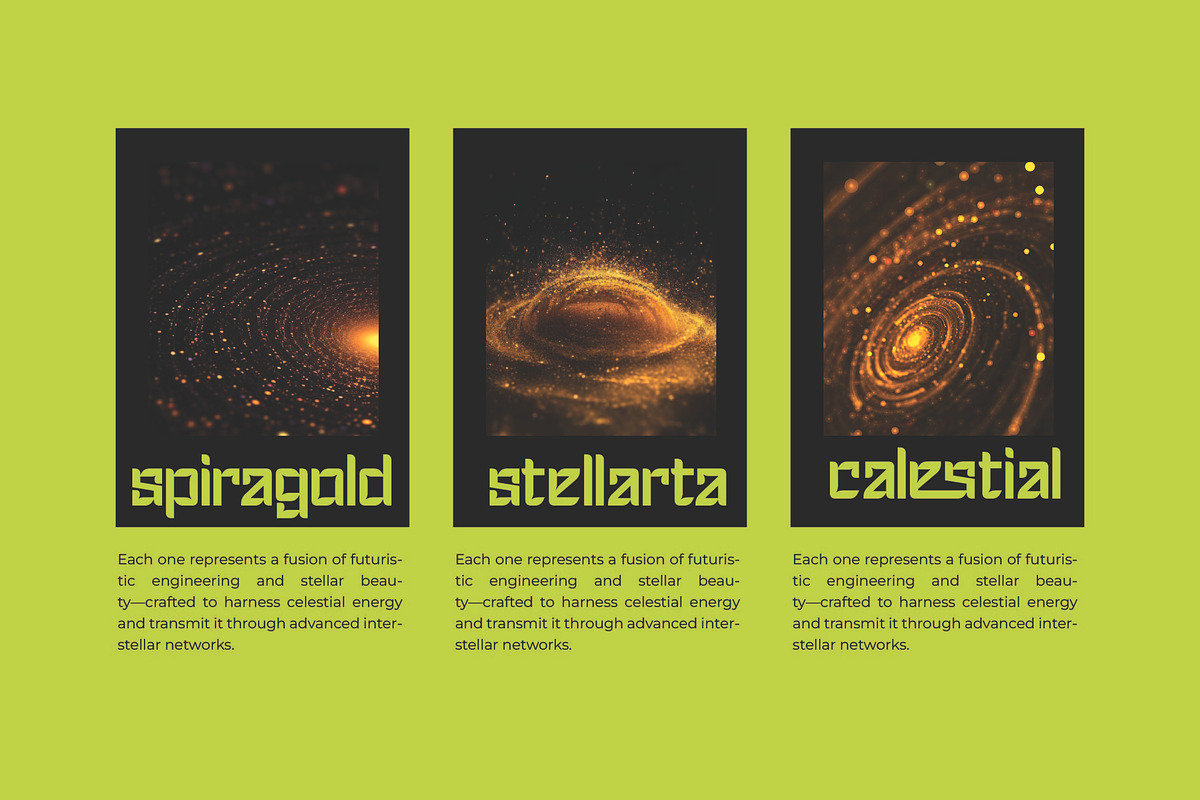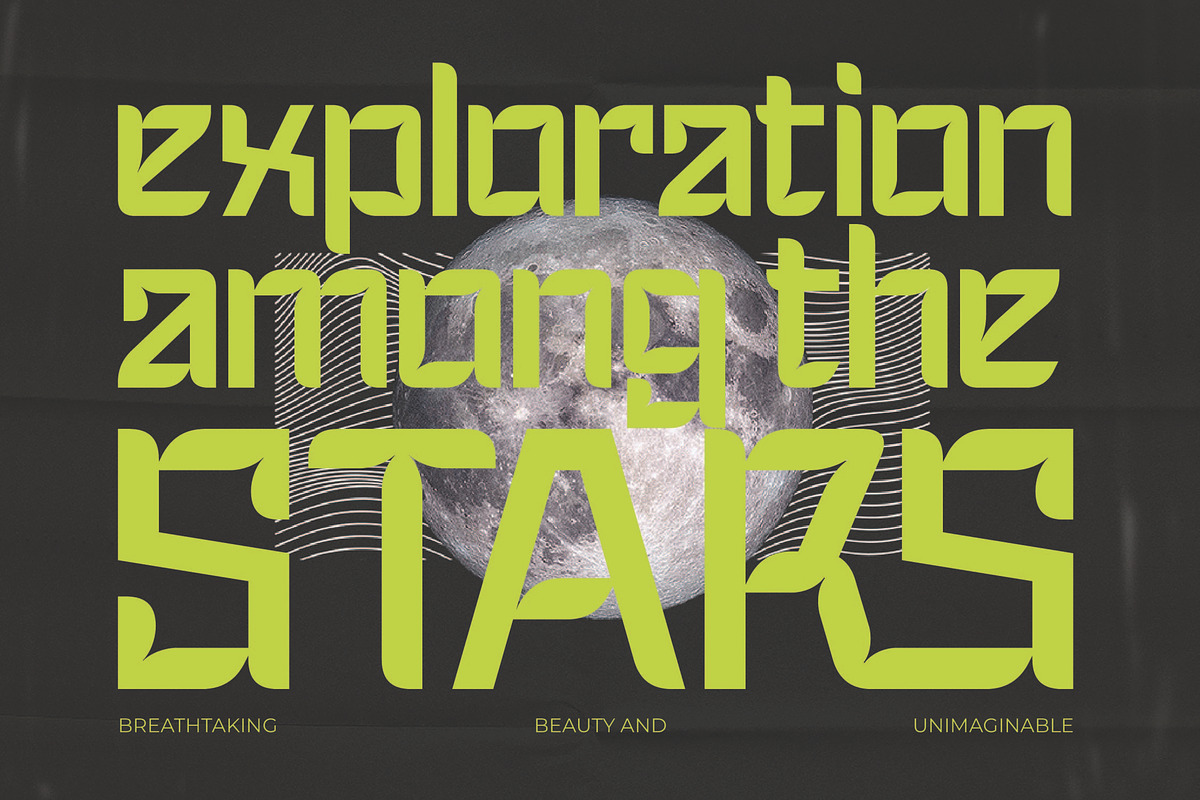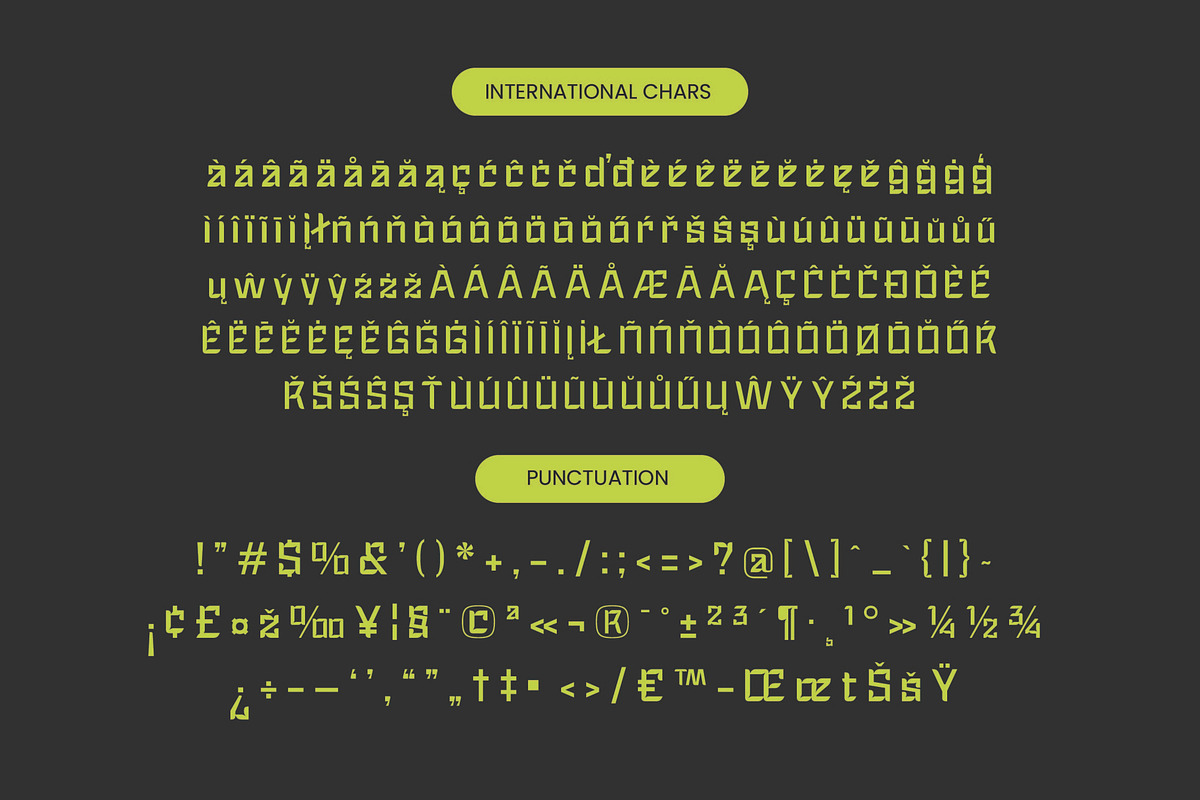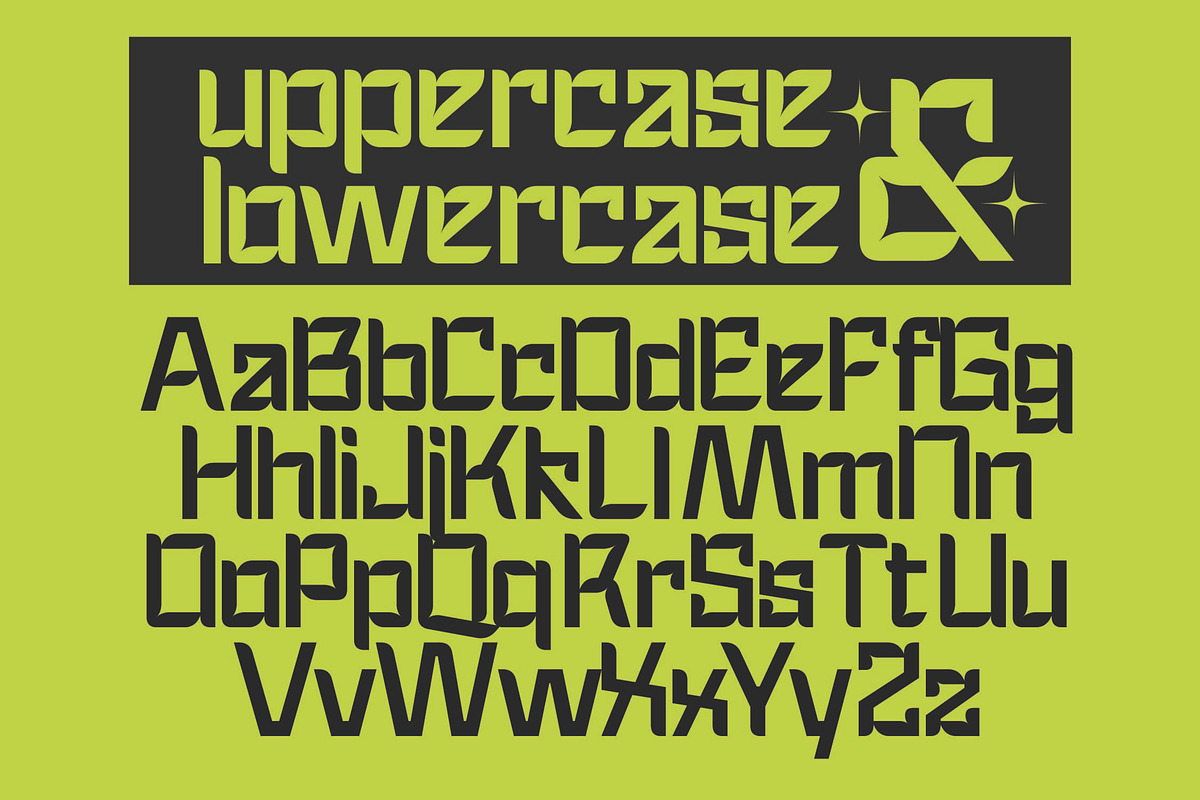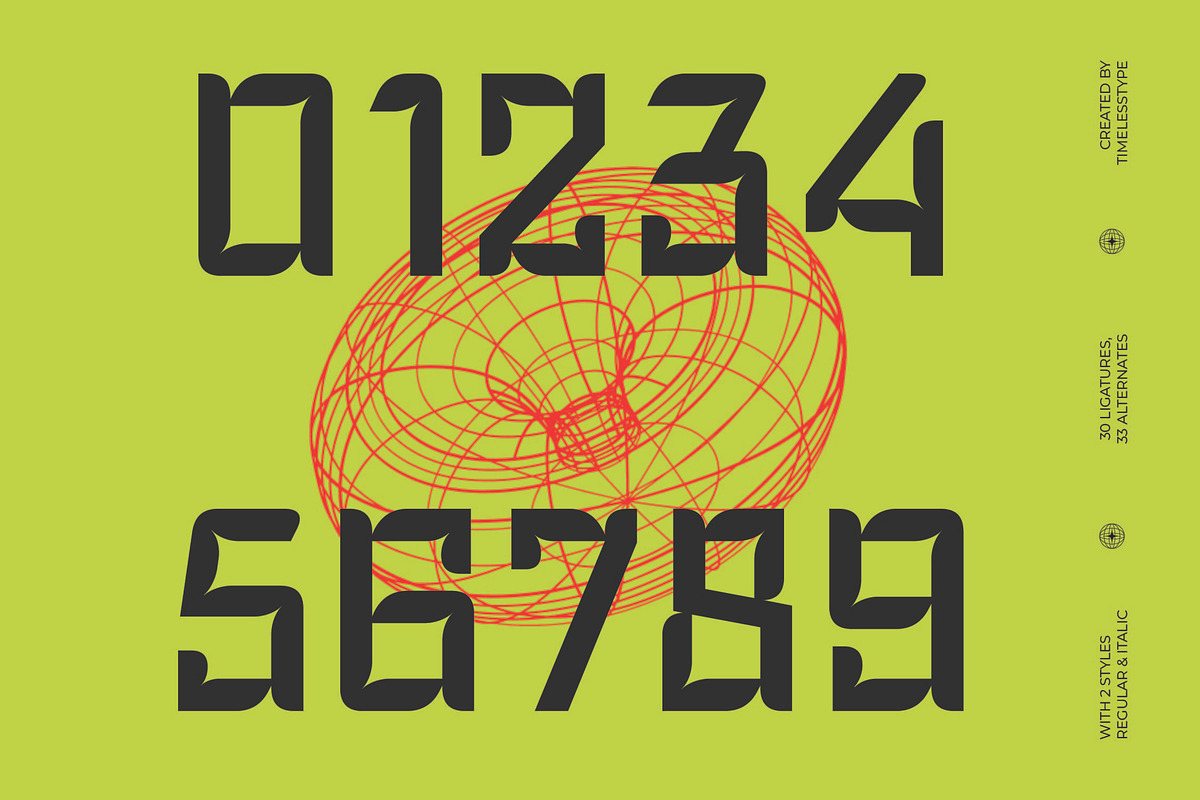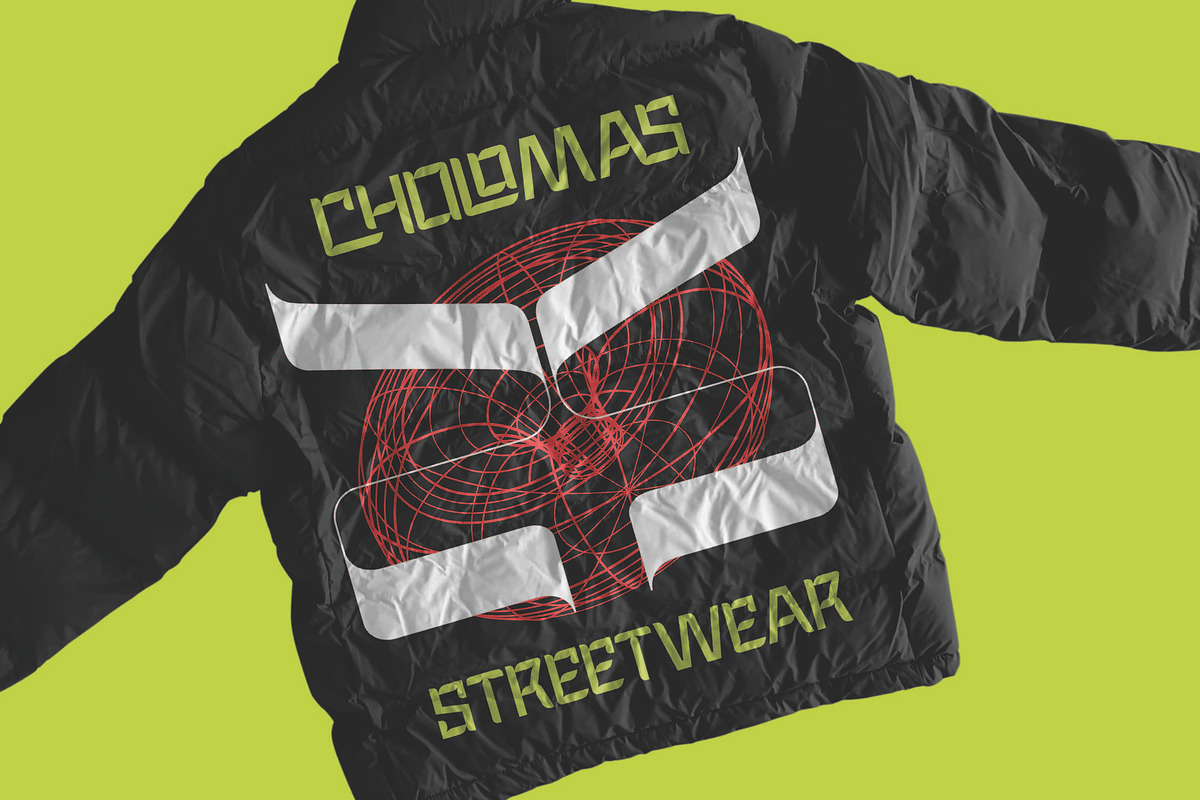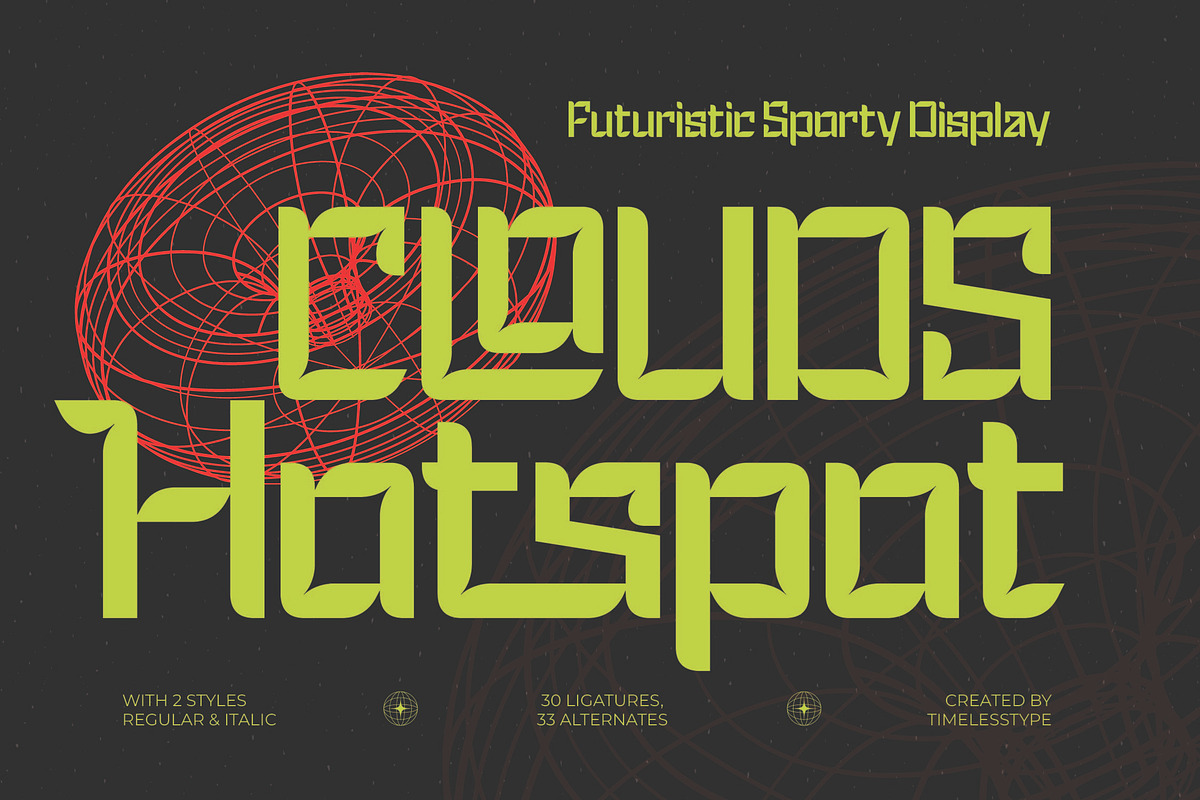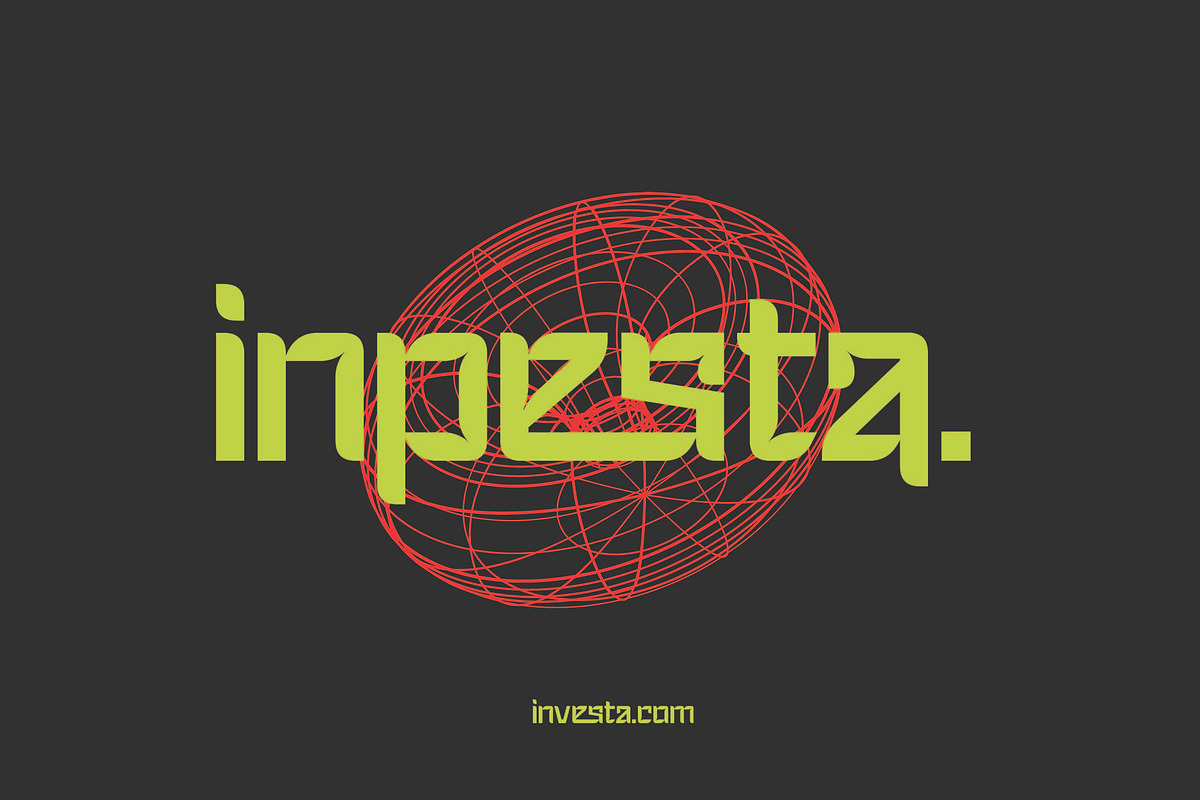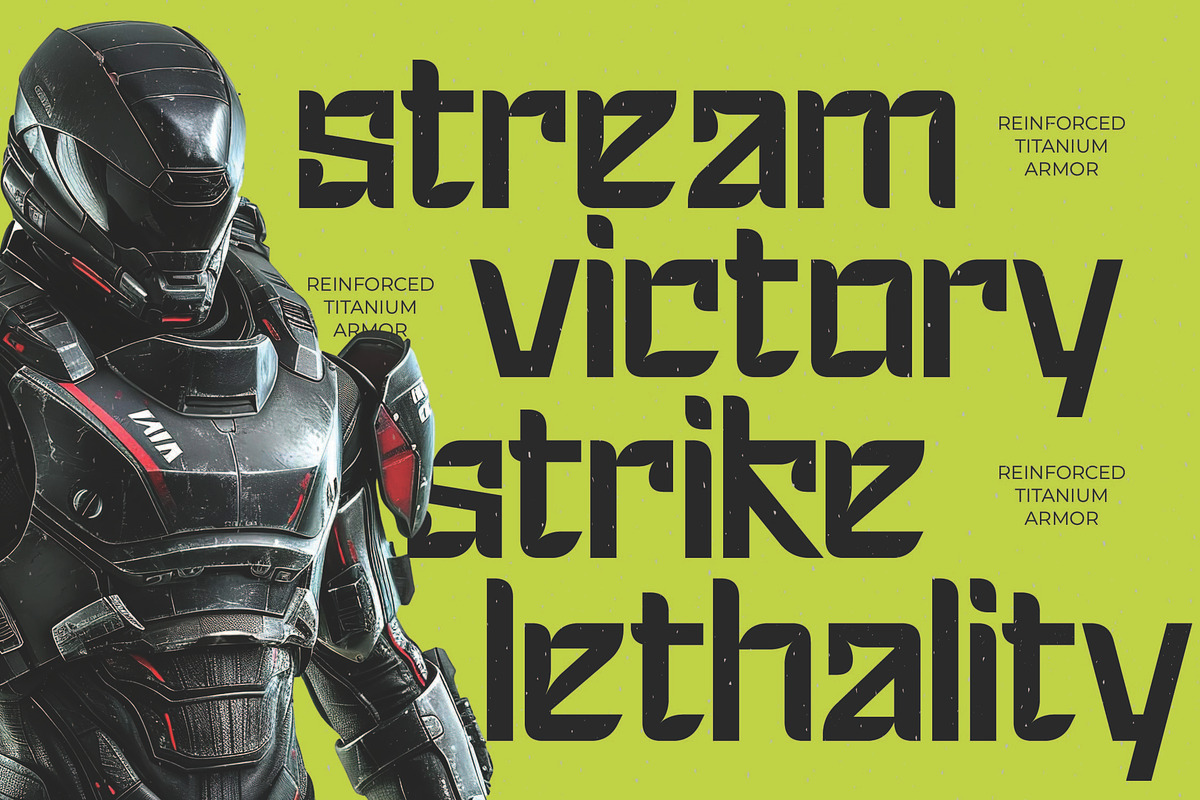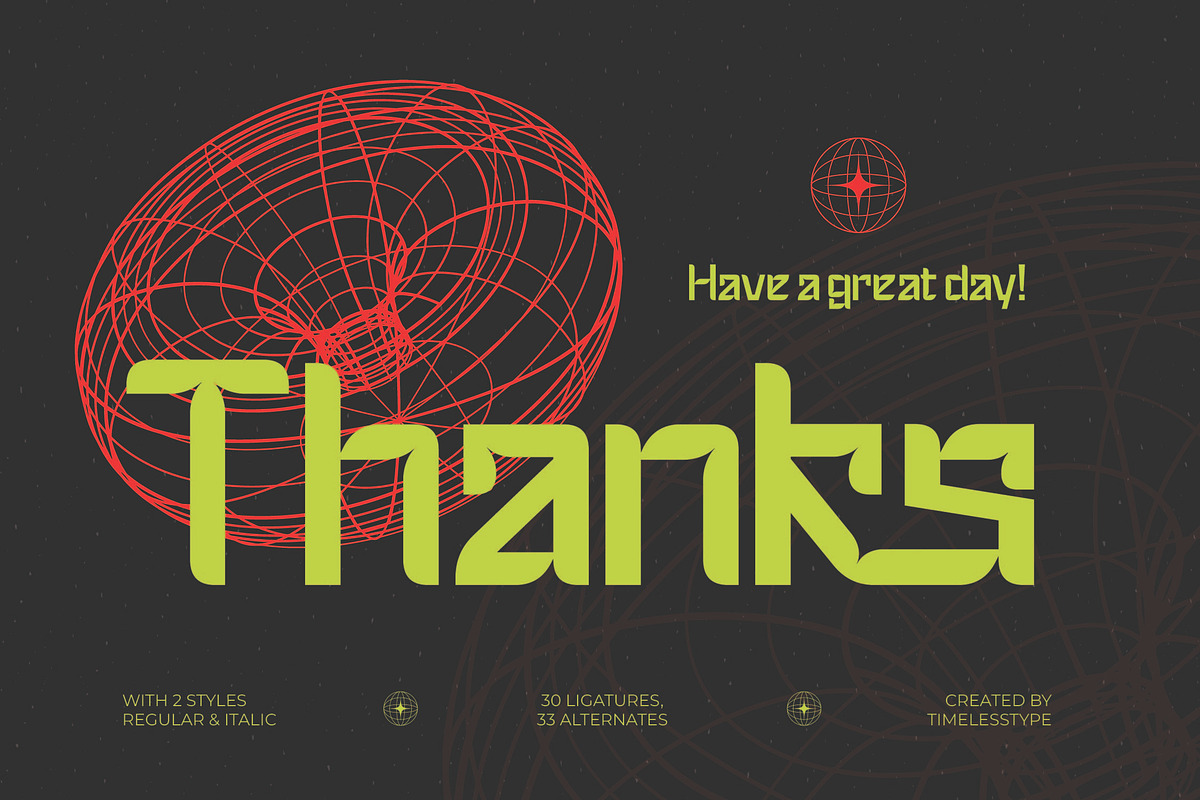
Clouds Hotspot Futuristic Display
Experience the electrifying energy of Clouds Hotspot, a typeface designed to push boundaries and command immediate attention. This font captures the pulse of modern movement, blending sharp angles with a liquid-like flow for an unforgettable visual impact.
Born from the intersection of high-speed athletics and cyberpunk aesthetics, this typeface draws inspiration from digital wireframes and the neon-lit streets of a futuristic metropolis. It embodies the spirit of innovation and the relentless drive of a digital athlete.
With its aggressive stance and unique structural rhythm, this modern serif display offers a massive branding impact that transcends traditional boundaries. It provides a sense of luxury typography through its intricate details while maintaining the raw power of a high-contrast serif built for an editorial font layout.
Aligning perfectly with the current modern serif trend, this typeface brings a fresh perspective to character-driven typography. Designers looking for editorial display fonts that feel both nostalgic for early-2000s tech and ready for the next decade will find this an essential tool for cutting-edge projects.
This versatile typeface is the ultimate choice for high-end logo design and comprehensive branding systems in the fashion and tech sectors. Whether you are crafting bold packaging for street-ready supplements or looking for a sharp editorial header, it delivers the precision needed for modern wedding stationery or high-octane sports graphics.
The package is fully loaded with a rich set of ligatures and alternates that allow for custom typographic flourishes. It also includes full support for multilingual projects, ensuring your message reaches a global audience through a wide range of international characters.
Ligatures and Alternative Style Stylistic Set